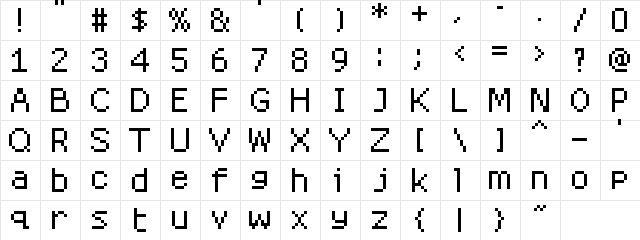
8star Regular
Design Context for 8star Typeface
8star offers clean, dependable letterforms without strong stylistic allegiance, making it a practical choice for designers who need flexibility.
Pro Tip: Use 8star in both headline and body roles to test its range before committing to a single application.